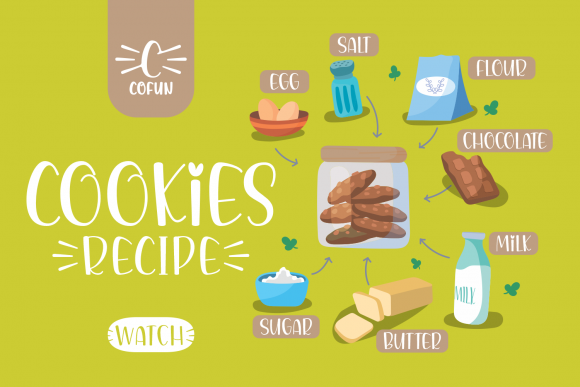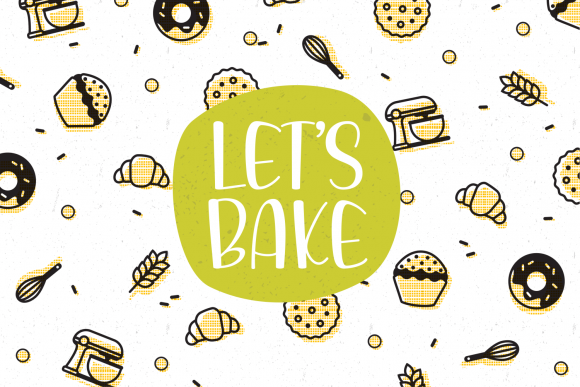
Main Kitchen Font
db-ku.com - Script & Handwritten -- Main Kitchen is an all caps, handwritten font that is both trendy and authentic looking. It is an extra special font that’s ‘i’ can be dotted with a heart. Use this font to create posts for your social media or corporate branding.